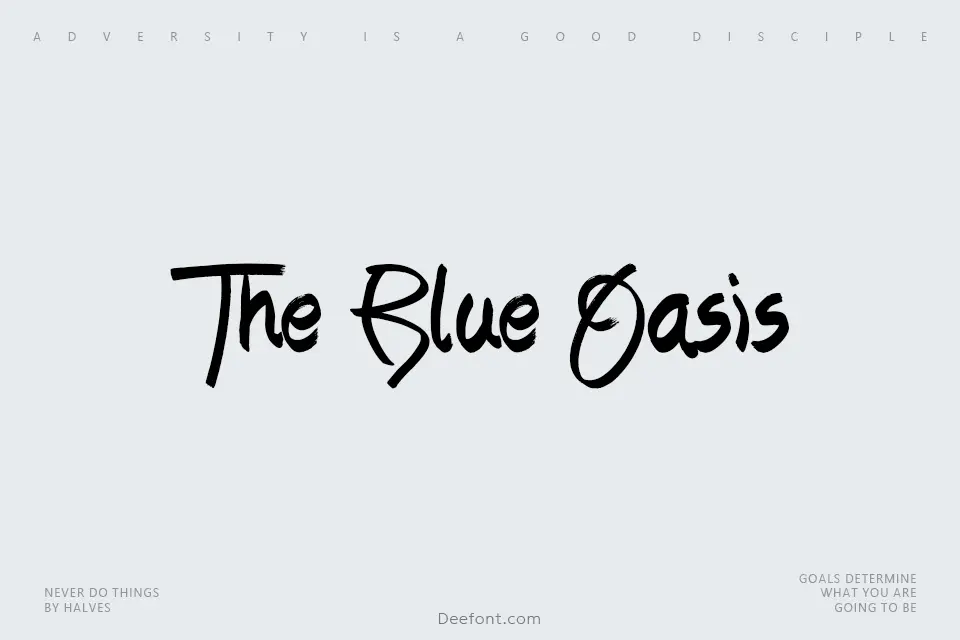
The Blue Oasis is a textured brush script designed by JSH creates. Featuring rough edges and a natural flow, this handwritten typeface captures a raw, artistic vibe. It is perfect for designing bold posters, unique logos, and casual branding. The font adds an authentic, energetic touch to any creative project requiring a distinct hand-drawn feel.